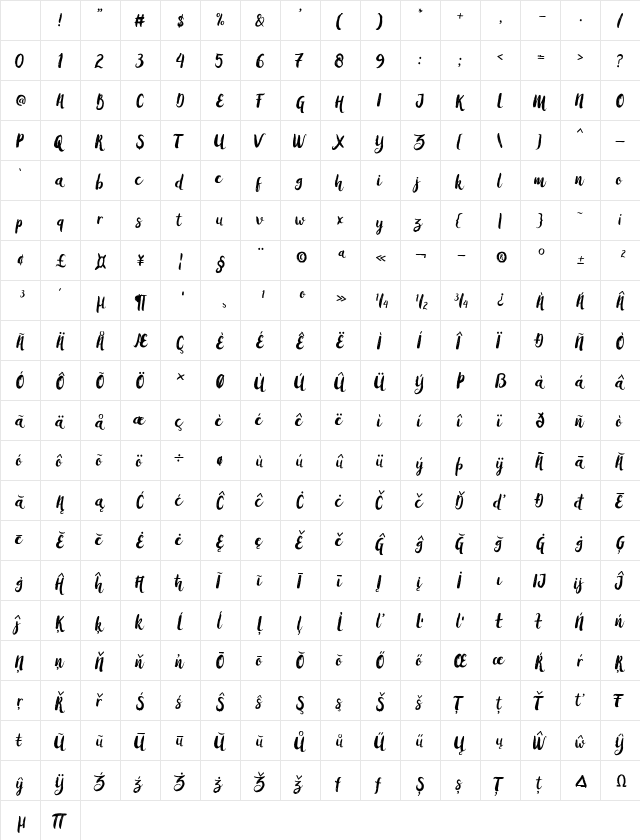
Complete the theatre demo Regular glyph index. Displaying only characters natively supported by the theatre demo Regular font.
the theatre demo is a composed and adaptable typeface that performs quietly and consistently across a wide range of design contexts.